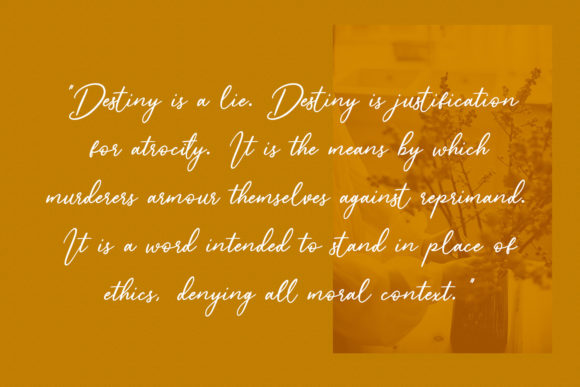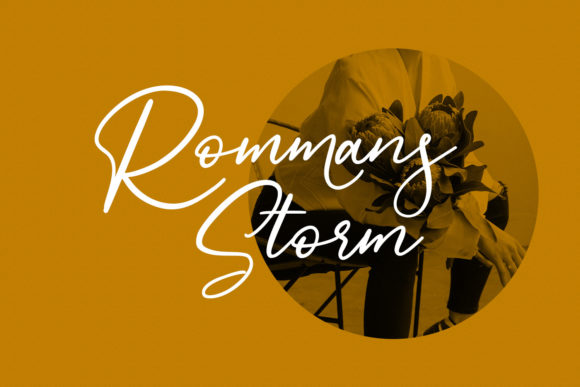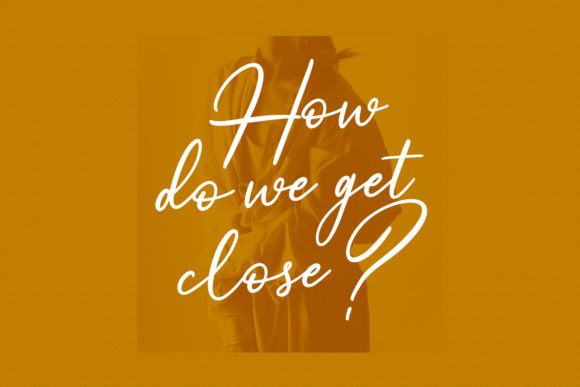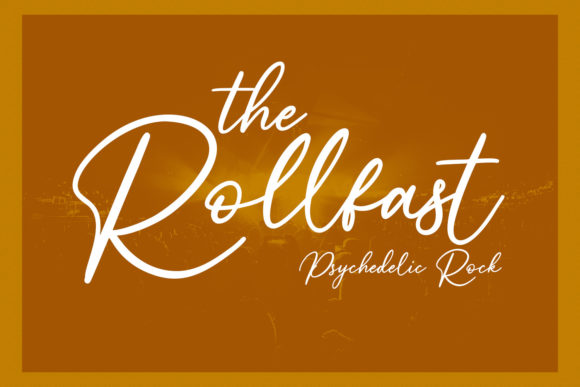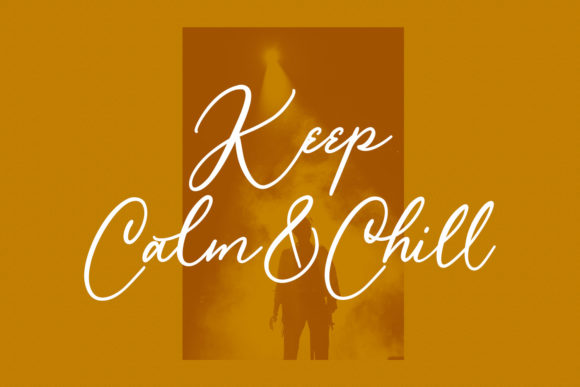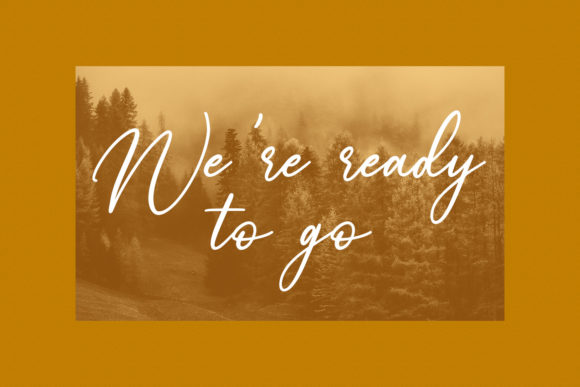
Introduction to Nishyad Script Font Font
Fonts play a crucial role in design, and the Nishyad Script Font font is a typeface that brings both character and versatility to any project. Whether you’re working on a branding project, a website, or a print design, the Nishyad Script Font font offers a unique style that can elevate your work.
Nishyad Script is a unique signature script font.
It features regular contrast strokes, fun characters, ligatures and alternates Add this gorgeous looking font to each of your love letters, wedding invitations or favorite design ideas, and you will be astounded by the outcome.
Key Features of Nishyad Script Font Font
Why Choose Nishyad Script Font Font?
The Nishyad Script Font font is more than just a typeface – it’s a design tool that helps you communicate your message with style and clarity. Its unique character set and versatile design make it suitable for a wide range of applications, from elegant invitations to bold headlines.
With its carefully crafted letterforms and balanced proportions, the Nishyad Script Font font ensures readability and visual appeal across all mediums.
What makes Nishyad Script Font font special?
The Nishyad Script Font font stands out with its unique design, exceptional readability, and versatility across various design applications.